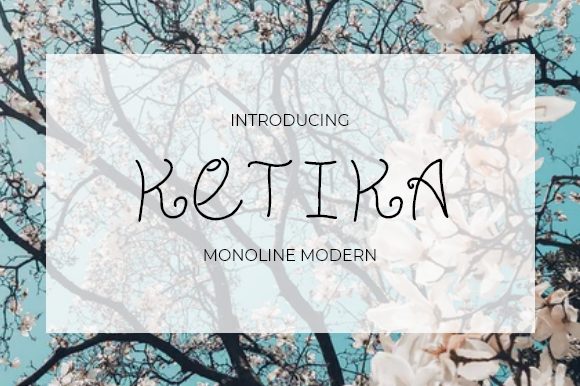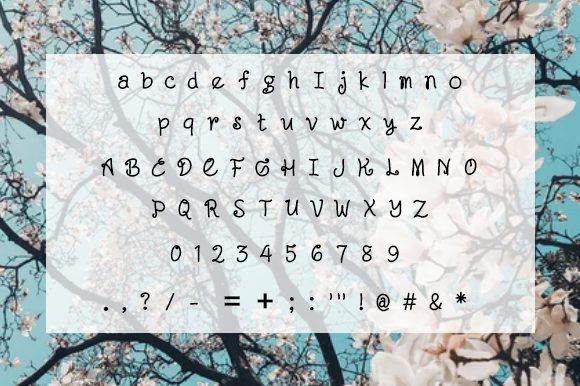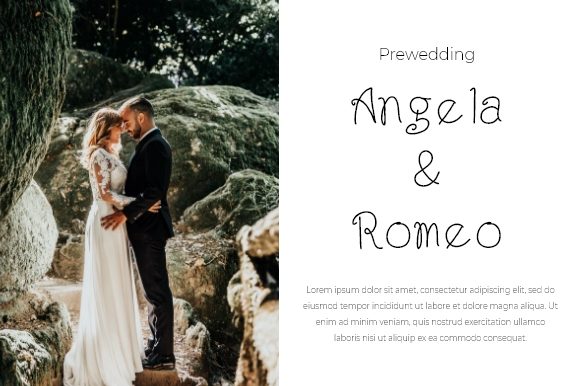
Ketika Font
Ketika is a casual and fun handwritten font. Clean and a little bit quirky, this font is the perfect fit for all of your logos, branding, social media, and crafty DIY projects.